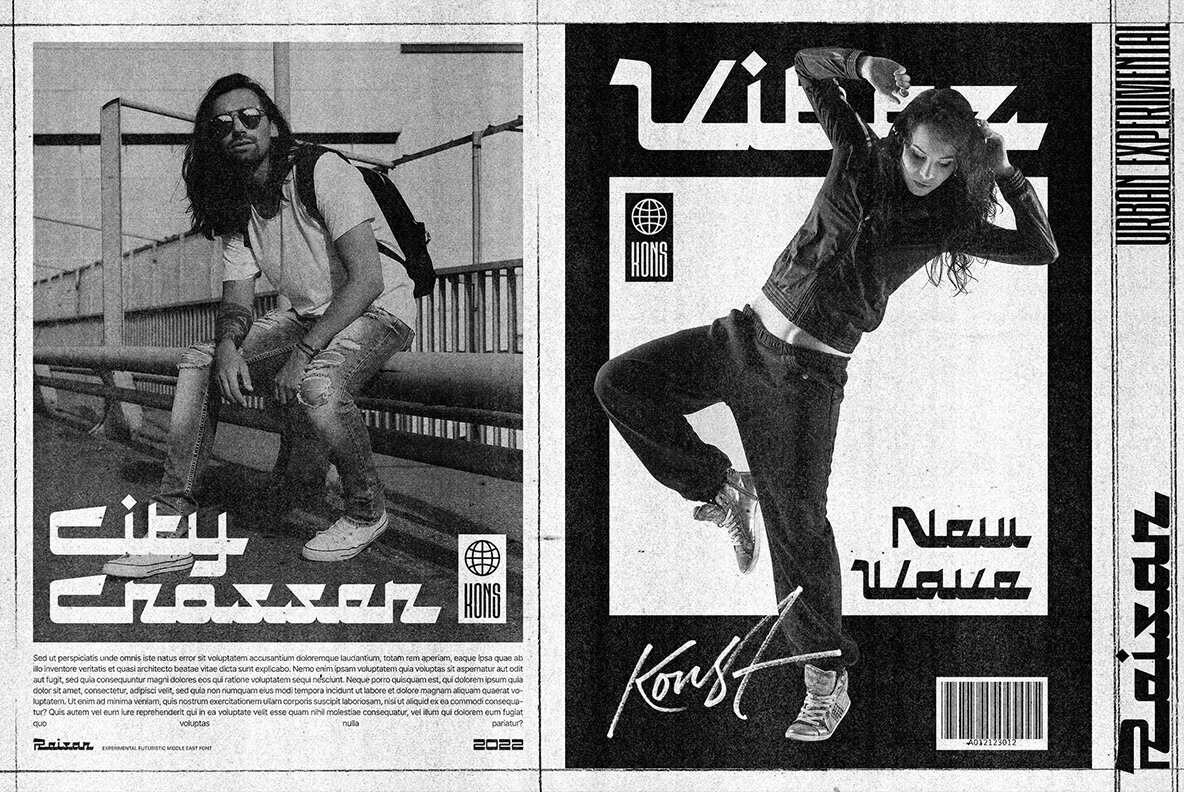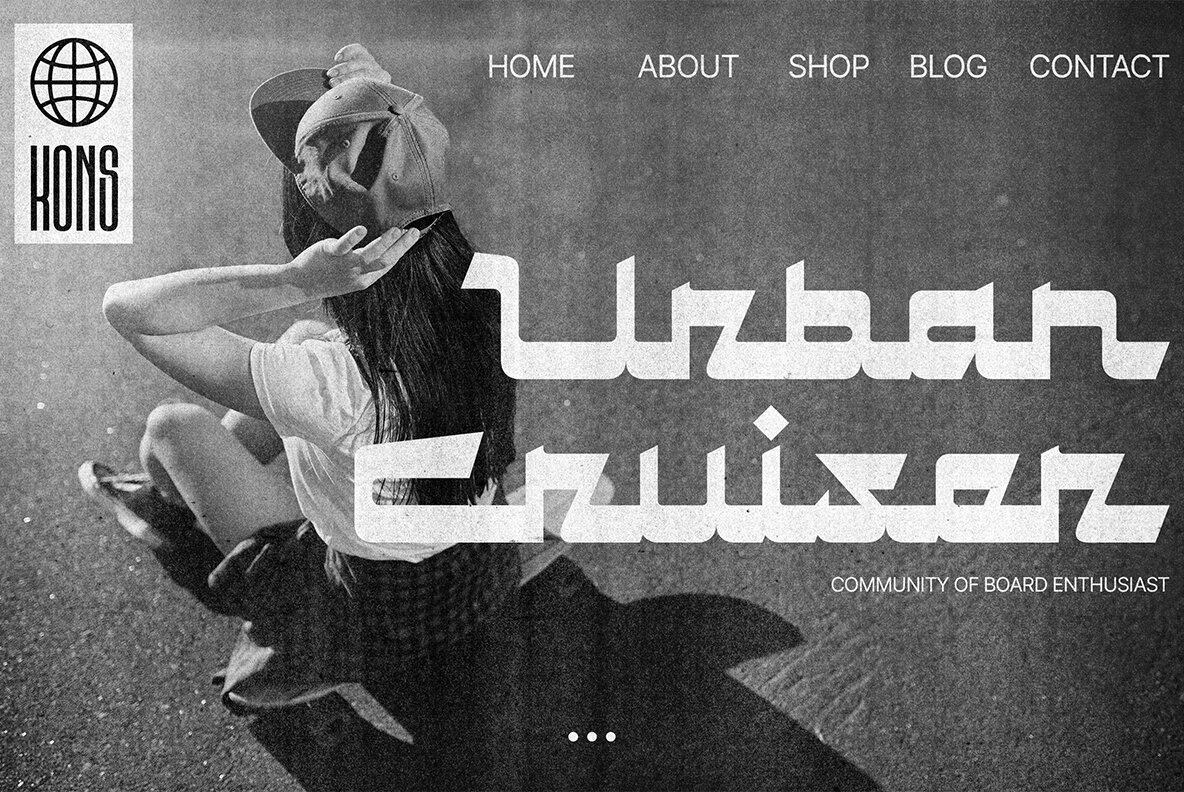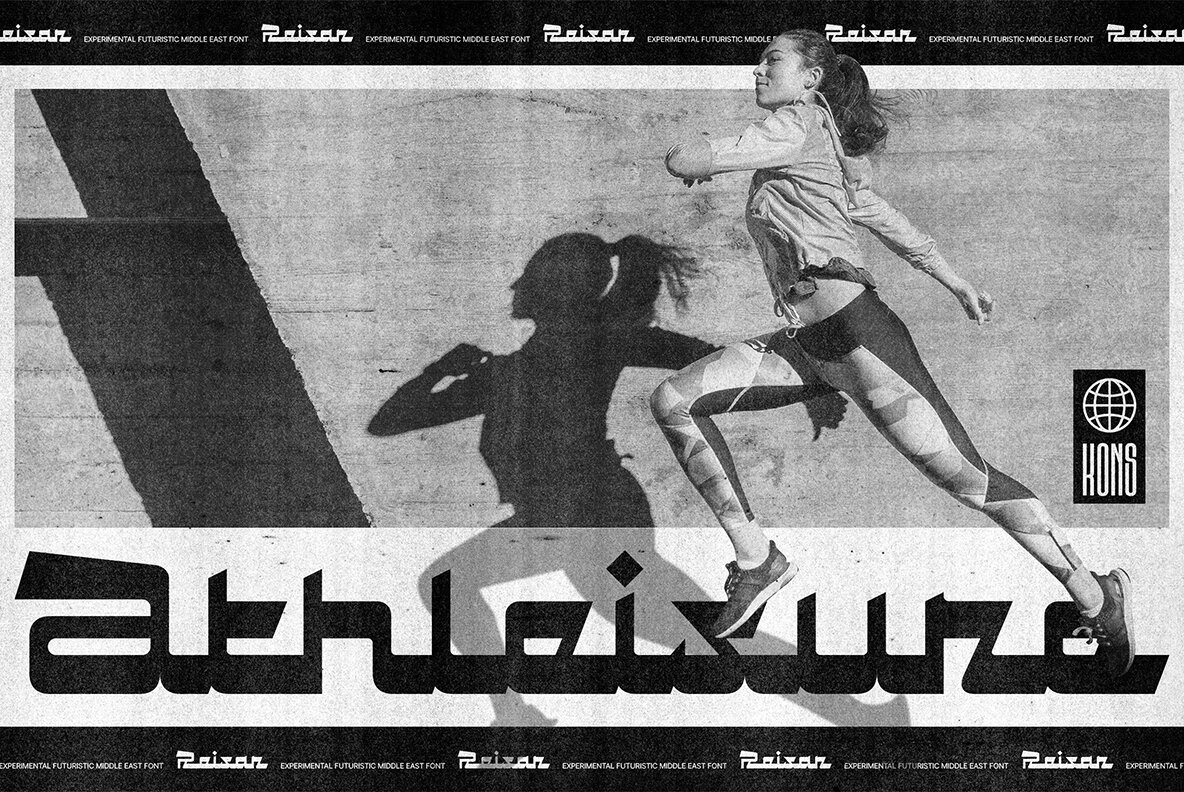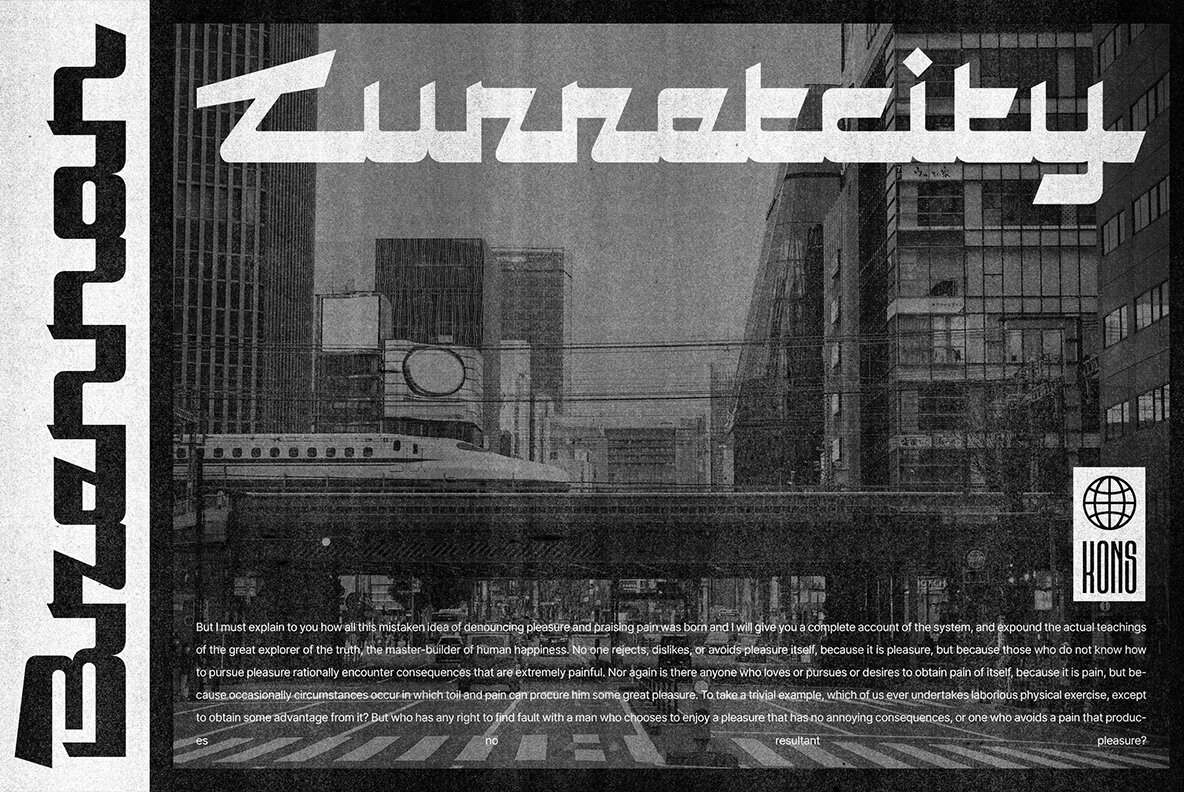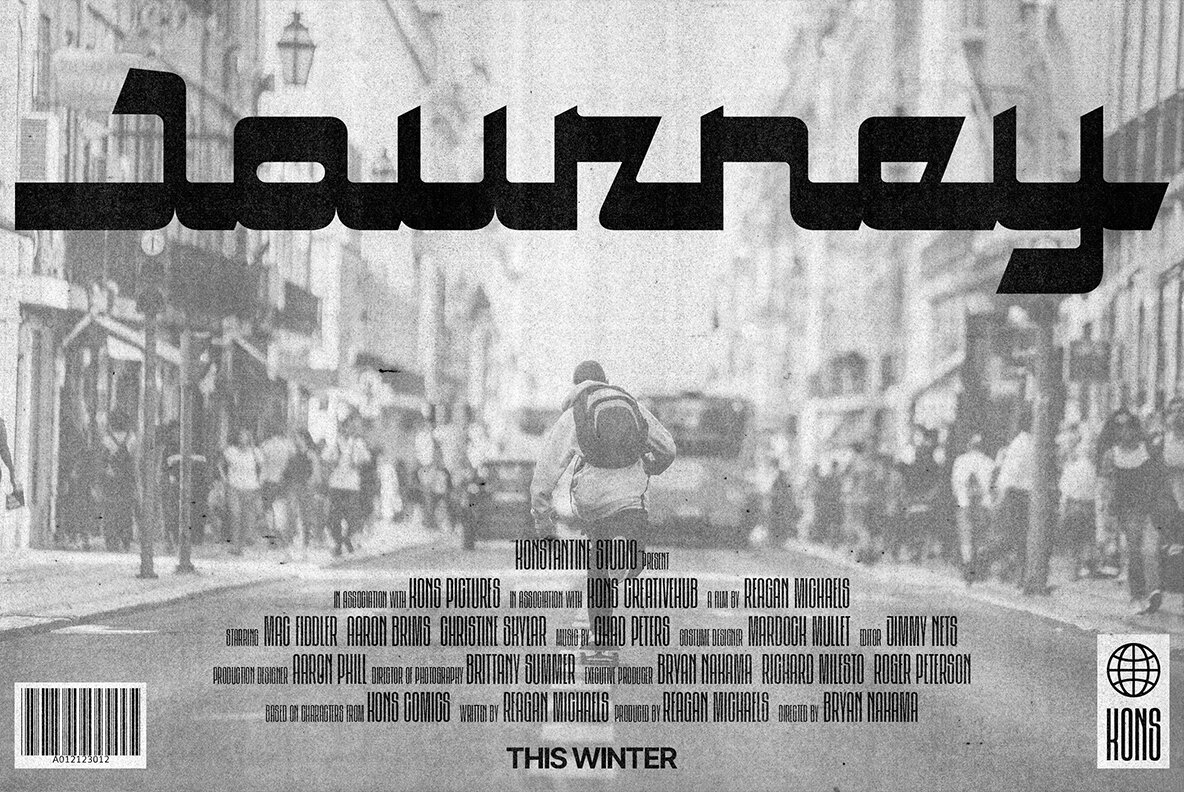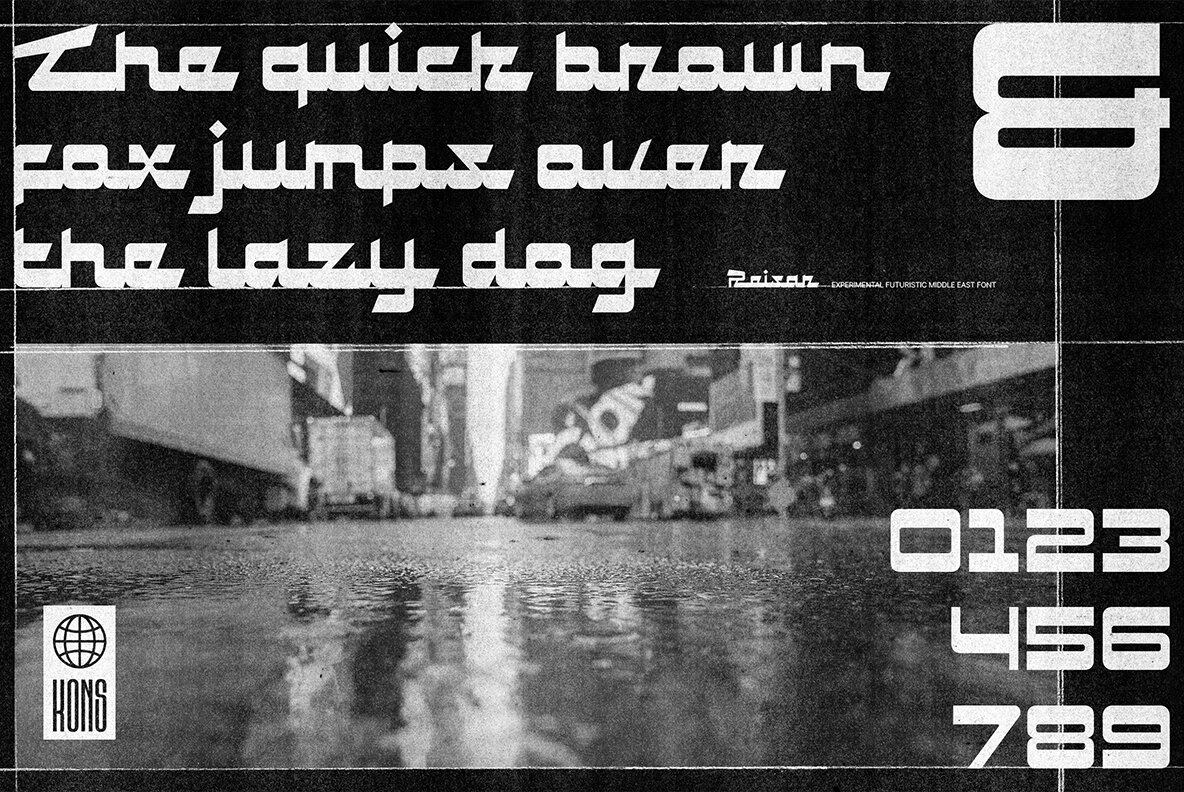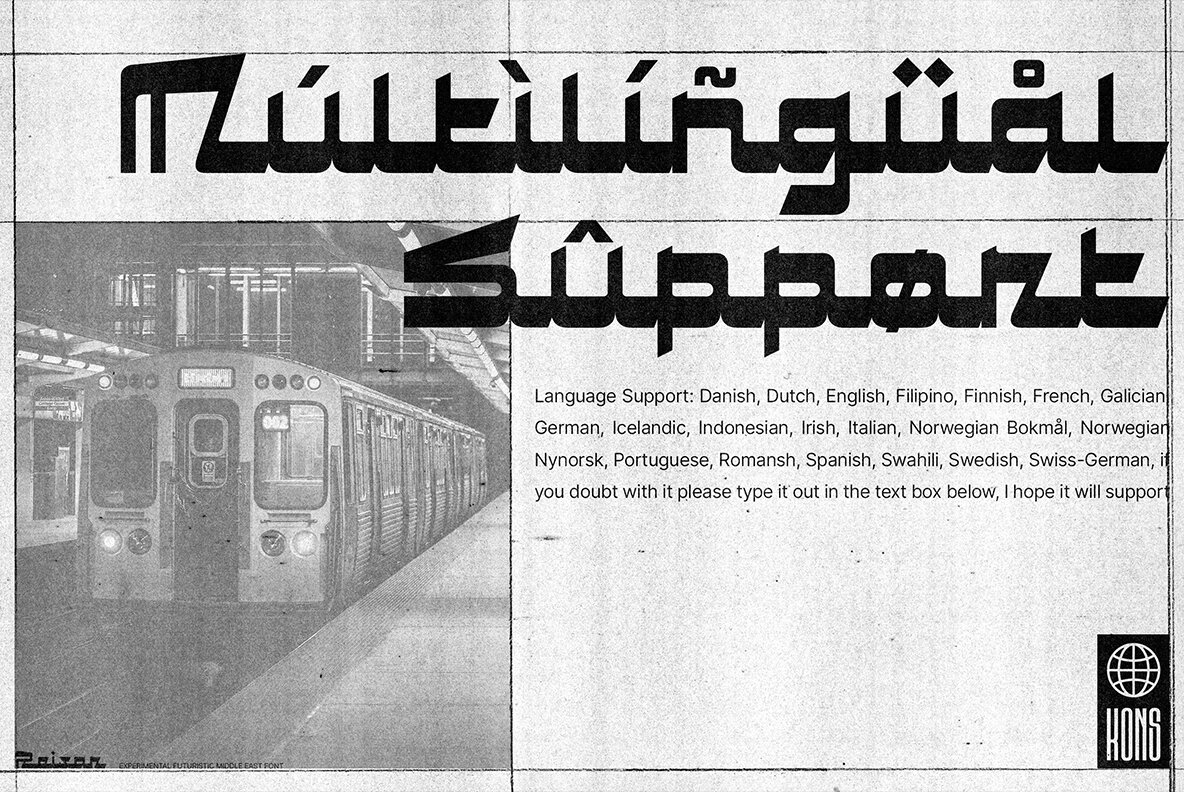
Reisar Font
Reisar is inspired by the vintage sign of motels, automotive logos, and badges, mixed up with urban modern cross-culture of contemporary visuals and brutalism. It makes Reisar born with a fresh vibe combined with the past and future for your visual graphic design needs.